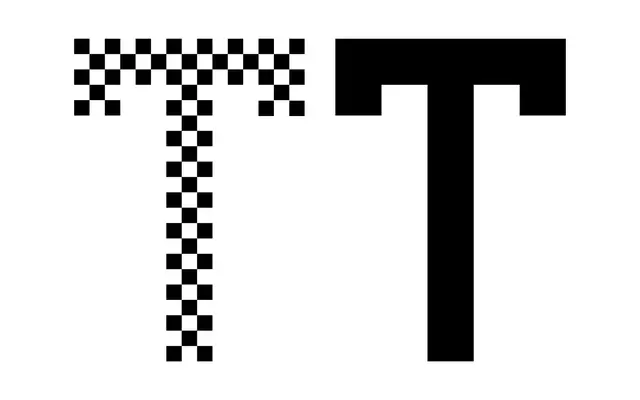
Abys Mono
A monospaced family from Bal Foundry spanning seven weights with matching italics and a variable font, pitched around mechanical and computational imagery.
Running from Thin to Black with a full italic counterpart at each weight, the family covers a wide tonal range rarely seen in monospaced type. A variable font is included alongside the static styles, giving flexible control over weight. The specimen copy leans into typewriter and computing history, framing the face as belonging to a lineage of inscription machines.
A monospaced typeface with a full weight range and matching italics, designed for fixed-width use with a mechanical and technical character evoked by its specimen copy.